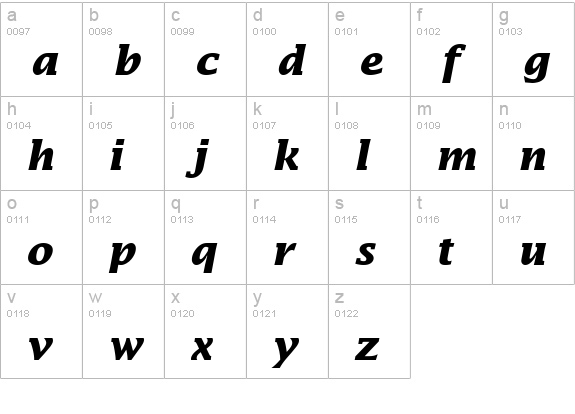
TR America Bold Italic is a strong, high-contrast, italic variant in the TR typeface family \xE2\x80\x94 well suited to headlines, attention-grabbing titles, and strong calls-to-action.
TR America Bold Italic is a striking and versatile typeface that exudes modernity and sophistication. Its bold yet elegant design makes it perfect for a wide range of design projects, from branding to editorial design. The italicized version adds a touch of flair and personality to any text, making it stand out from the crowd. What's even better is that TR America Bold Italic is available for free download at FontsMarket.com. This means you can easily access this high-quality font without any cost, making it a valuable addition to your font library. Whether you're working on a professional project or a personal endeavor, TR America Bold Italic is sure to elevate your designs and leave a lasting impression. Download it now and unleash your creativity with this exceptional font.